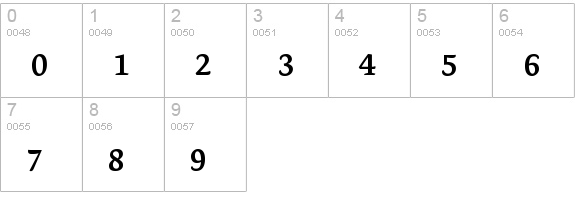
Dolly-SmallCaps Font Details
Introducing Dolly-SmallCaps font, a stylish and elegant typeface that brings a touch of sophistication to any design project. With its delicate small caps and graceful curves, Dolly-SmallCaps exudes a timeless charm that is perfect for adding a touch of class to invitations, logos, and more. This versatile font is ideal for both print and digital applications, making it a must-have for any designer's toolkit. Whether you're working on a formal event invitation or a high-end branding project, Dolly-SmallCaps is sure to impress with its unique blend of classic elegance and modern flair. Best of all, Dolly-SmallCaps is available for free download at FontsMarket.com, making it easy to add this stunning font to your collection without breaking the bank. Don't miss out on the opportunity to elevate your designs with the beauty and sophistication of Dolly-SmallCaps font today!